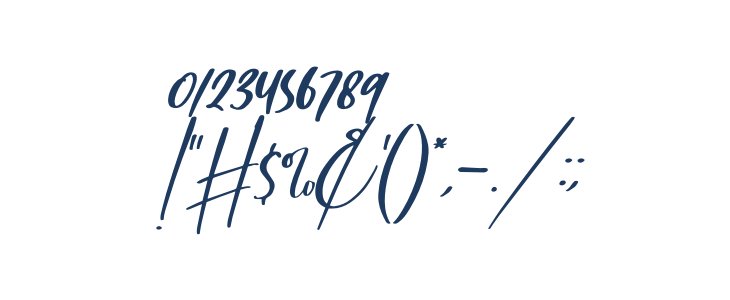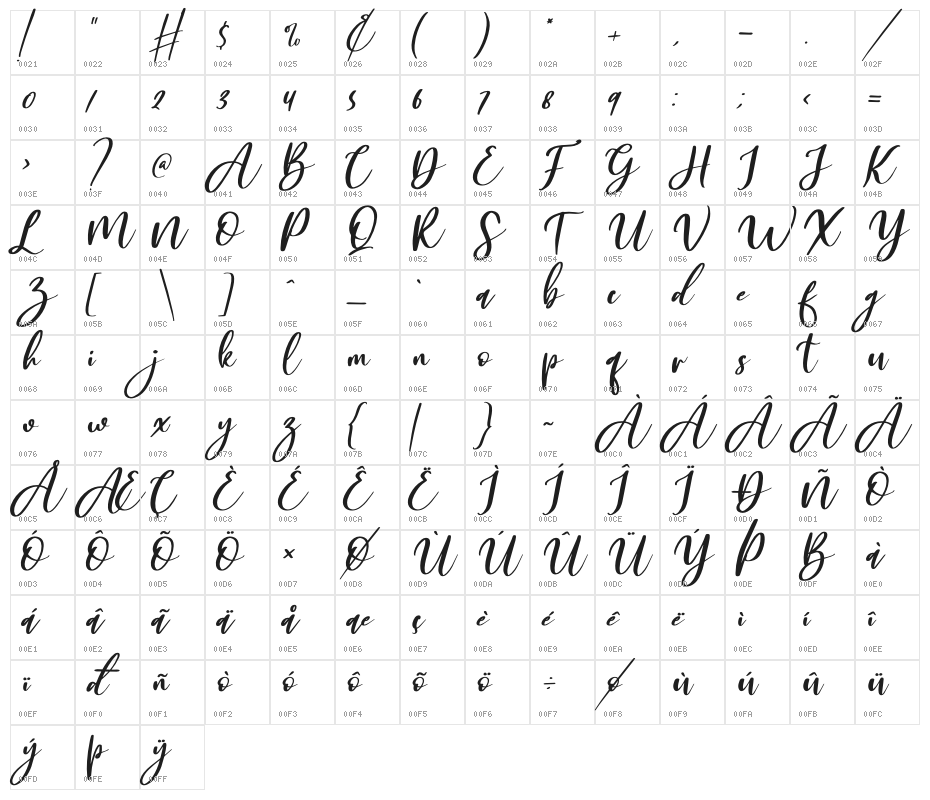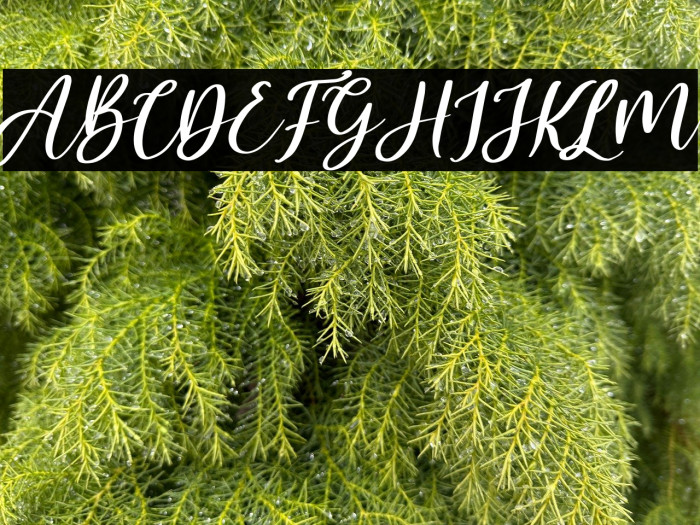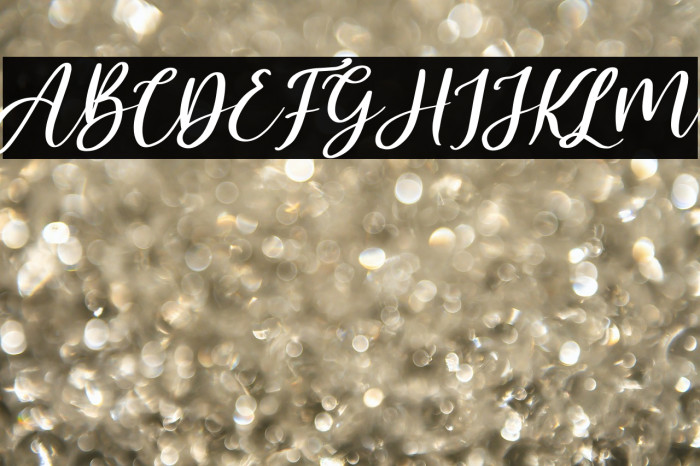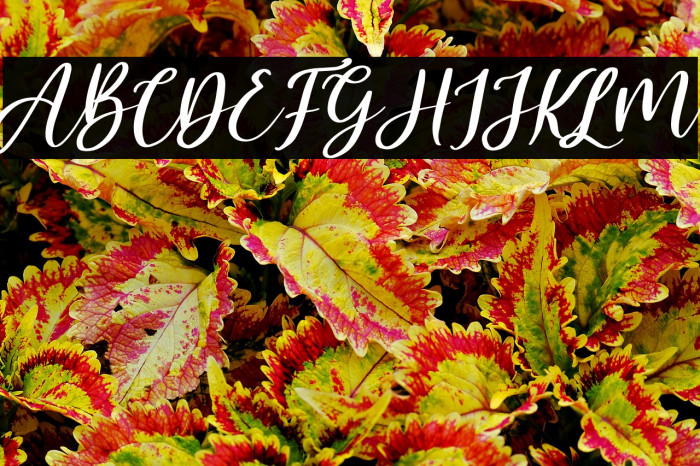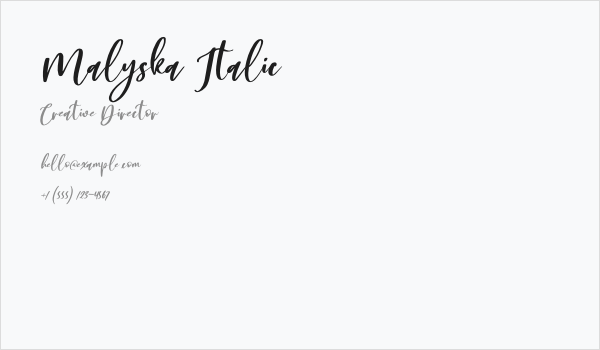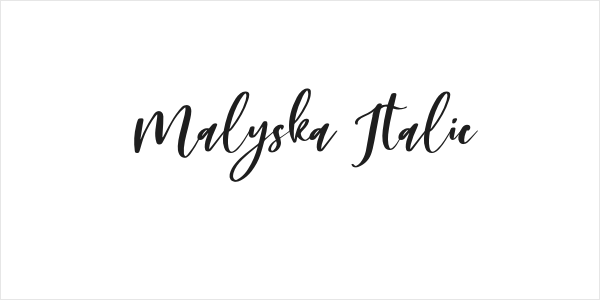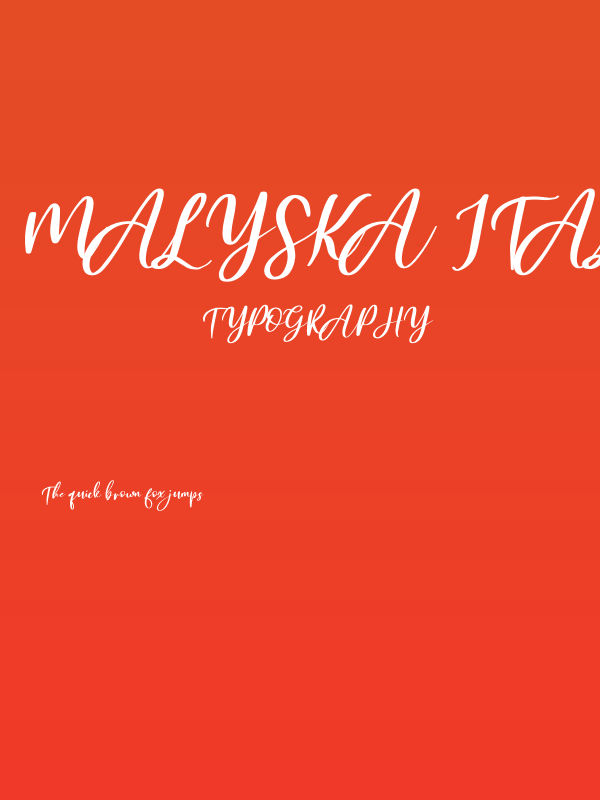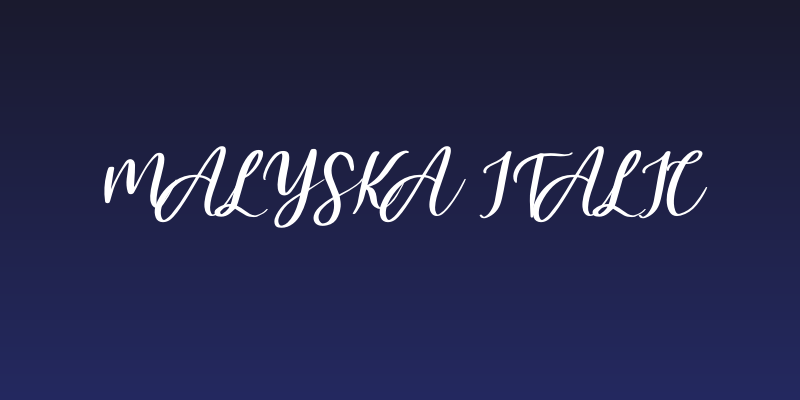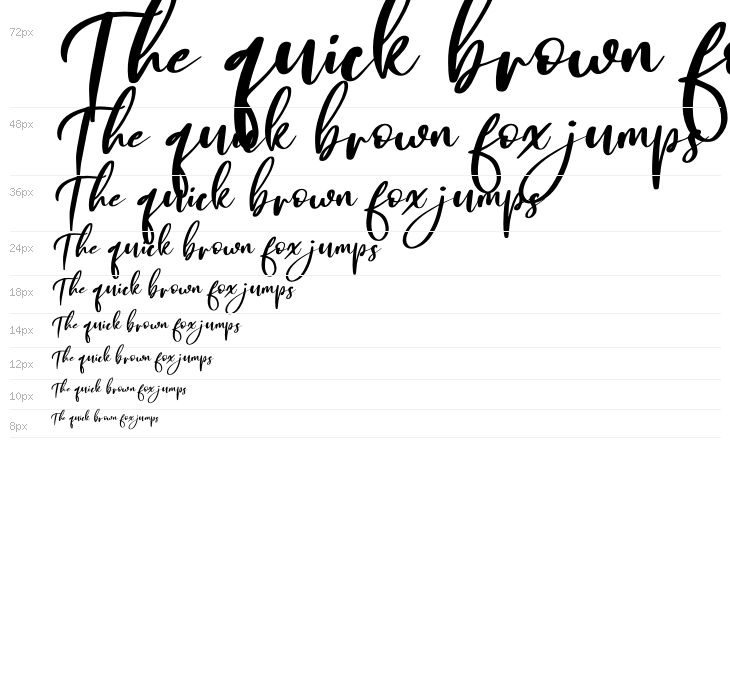
Malyska Italic Font
Malyska Italic Description
This font features a flowing, cursive style with elegant, sweeping strokes that give it a handwritten appearance. The uppercase letters are bold and expressive, while the lowercase letters maintain a consistent fluidity, enhancing its script-like quality. The numbers and special characters are designed to complement the overall aesthetic, maintaining the same graceful curves and dynamic lines. The font's italic nature adds a sense of movement and sophistication, making it suitable for projects that require a personal touch. Its artistic flair is evident in the way each letter connects seamlessly, creating a harmonious and visually appealing text flow.